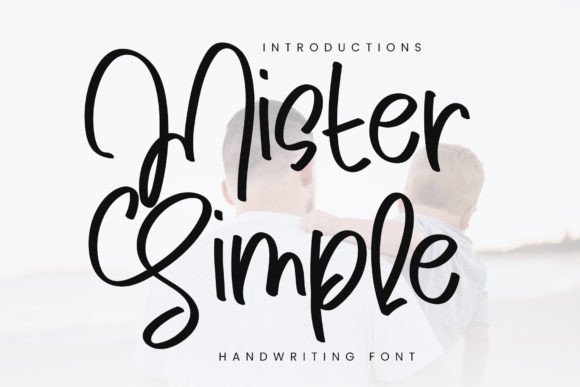
Mister Simple Font: Elevate Your Designs with Elegance and Sophistication
In the world of typography, fonts play a crucial role in conveying the tone and personality of a design. Among the numerous fonts available, Mister Simple Font stands out as a stylish and dainty script font that can add a touch of elegance and sophistication to various projects. In this article, we’ll explore the features, benefits, and uses of Mister Simple Font, and how it can elevate your designs to the next level.
What is Mister Simple Font?
Mister Simple Font is a beautiful script font designed to bring a touch of elegance and sophistication to various design projects. Its stylish and dainty appearance makes it perfect for creating visually appealing designs that require a high level of typography.
Key Features of Mister Simple Font
- PUA Encoded: Mister Simple Font is PUA (Private Use Area) encoded, which means you can access all the glyphs and swashes with ease. This feature allows you to create stunning designs with a high level of customization.
- Stylish and Dainty: The font’s stylish and dainty appearance makes it perfect for designs that require a touch of elegance and sophistication.
- Script Font: Mister Simple Font is a script font, which means it’s designed to mimic handwriting. This feature adds a personal touch to your designs and makes them more visually appealing.
Benefits of Using Mister Simple Font
Using Mister Simple Font in your designs comes with several benefits, including:
- Elegance and Sophistication: The font’s stylish and dainty appearance adds a touch of elegance and sophistication to your designs.
- Customization: The PUA encoding allows you to access all the glyphs and swashes, giving you a high level of customization.
- Versatility: Mister Simple Font is suitable for various design projects, including logos, branding projects, labels, photography, watermarks, and more.
Uses of Mister Simple Font
Mister Simple Font is suitable for various design projects, including:
- Logos: The font’s stylish and dainty appearance makes it perfect for creating logos that require a touch of elegance and sophistication.
- Branding Projects: Mister Simple Font can be used in branding projects to create a consistent visual identity.
- Labels: The font’s script style makes it perfect for creating labels that require a personal touch.
- Photography: Mister Simple Font can be used to create beautiful watermarks and overlays for photographs.
- Special Events: The font’s elegant appearance makes it perfect for creating invitations, programs, and other materials for special events.
Design Tips for Using Mister Simple Font
Here are some design tips to help you get the most out of Mister Simple Font:
- Pair it with Other Fonts: Mister Simple Font can be paired with other fonts to create a unique and visually appealing design.
- Use it for Headings: The font’s stylish and dainty appearance makes it perfect for headings and titles.
- Experiment with Colors: Mister Simple Font can be used with various colors to create a design that matches your brand’s color scheme.
- Keep it Simple: The font’s elegant appearance can be overpowered by too much design. Keep your design simple and clean to let the font shine.
Mister Simple Font is a beautiful script font that can add a touch of elegance and sophistication to various design projects. Its stylish and dainty appearance, PUA encoding, and versatility make it a great choice for designers looking to create visually appealing designs. By following the design tips outlined in this article, you can get the most out of Mister Simple Font and create stunning designs that leave a lasting impression.